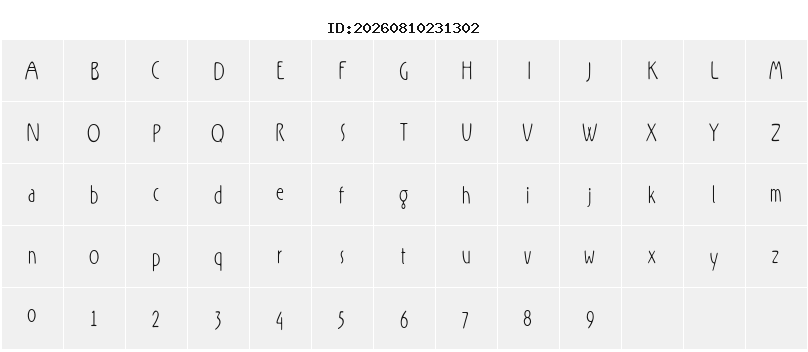
• Font Name: Rx-ZeroZero
• Designer: Apostrophe (')
About Rx-ZeroZero.ttf
Rx-ZeroZero.ttf is a modern, elegant sans-serif font designed for ultimate readability and visual harmony. Perfect for branding, headlines, web design, and print materials.